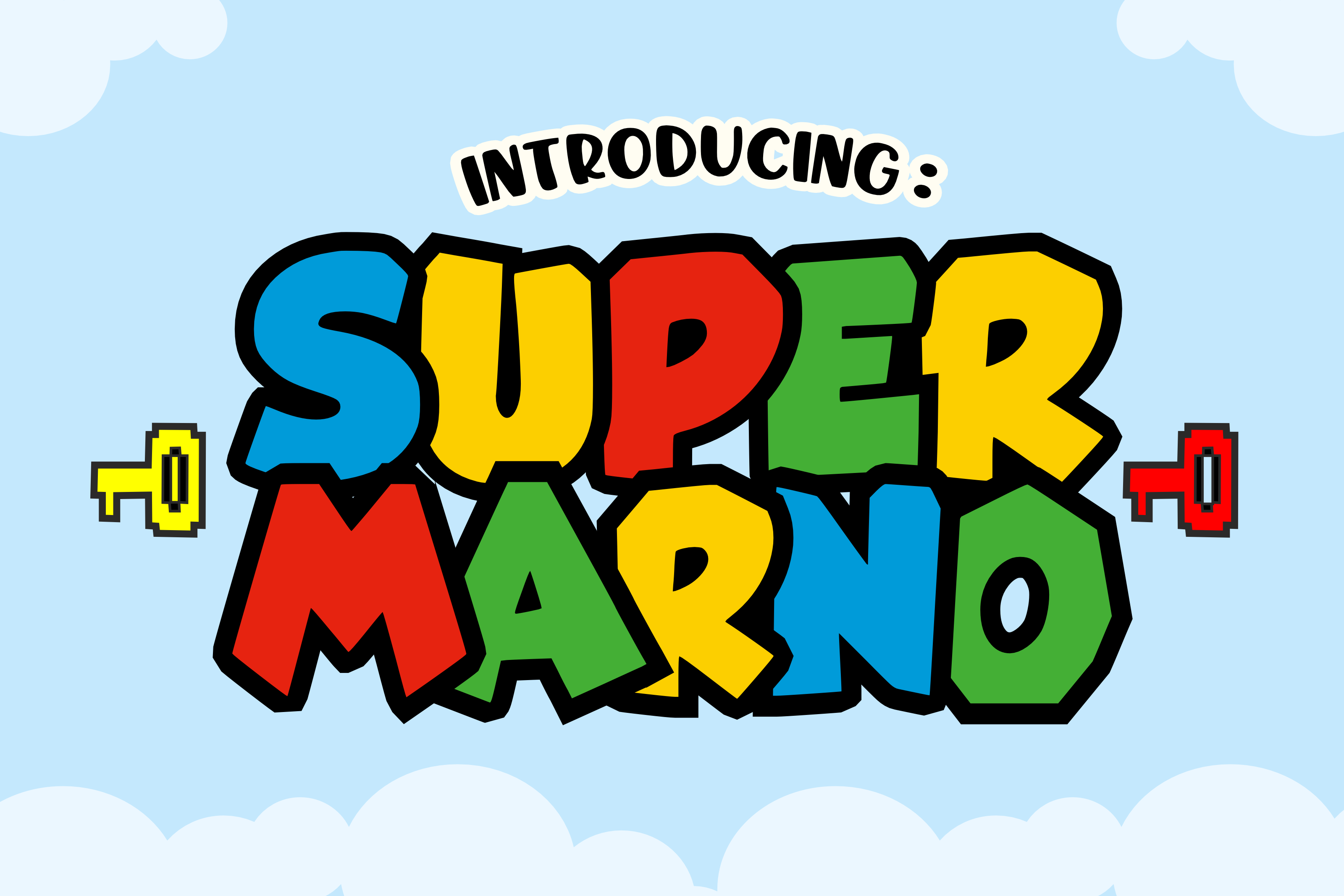
Super Marno - Children's Font Types
Welcome to the world of “Super Marno,” a classic display font with a unique flair. Its nostalgic vibe and distinctive style are sure to be a hit with enthusiasts of classic games, making it a favorite amongst youngsters. From t-shirt designs to mugs, stickers, and comics, Super Marno’s versatile appeal transforms everyday items into delightful pieces of art.